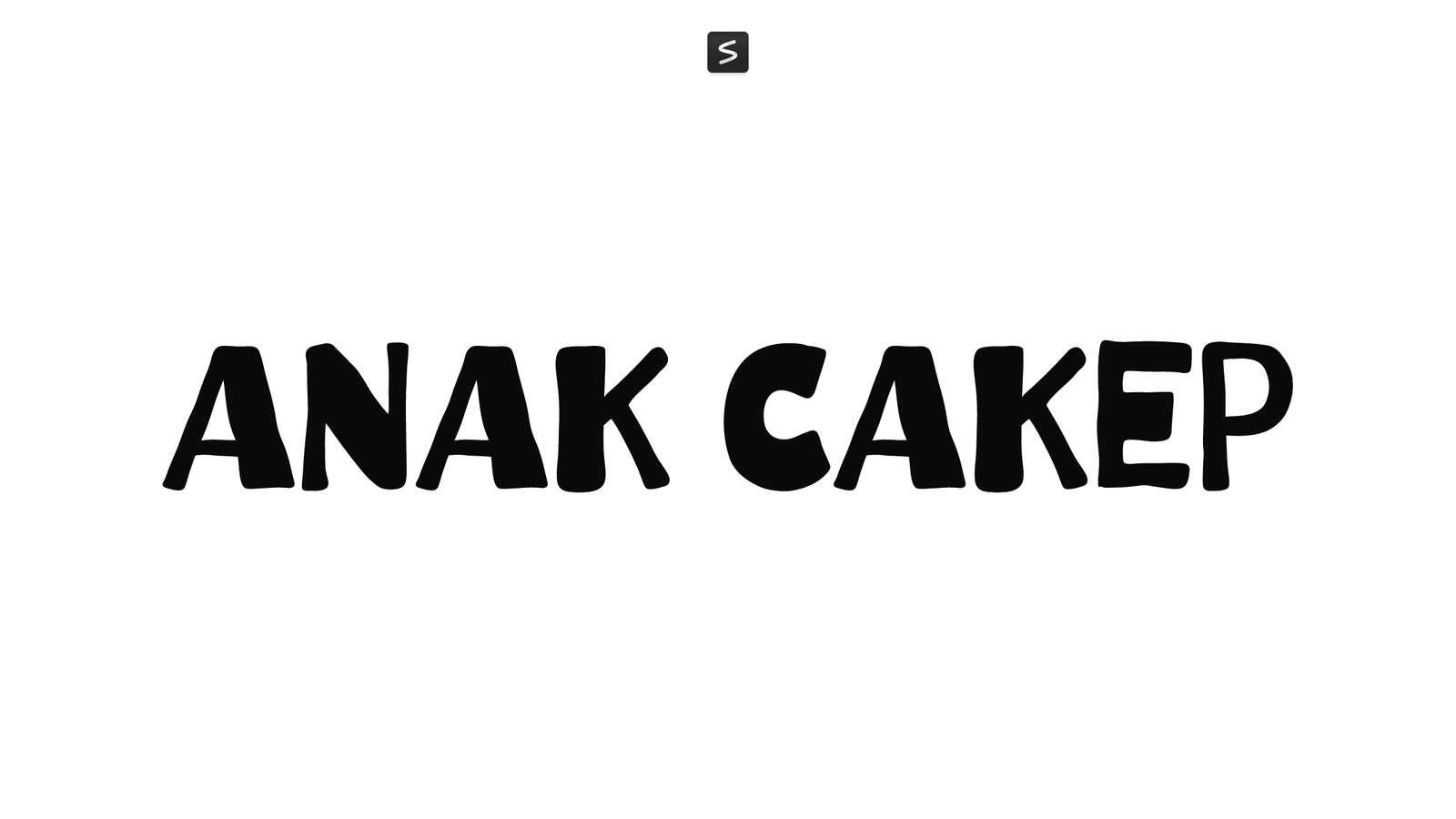
Anak Cakep is a rounded sans-serif font by Khurasan™ with soft corners and generous weight. The letterforms have a friendly, bouncy character that feels contemporary and approachable, designed to work well in playful and youth-oriented projects.
The bold, rounded strokes give each letter a relaxed personality without sacrificing readability. This makes it suitable for posters, social media graphics, cartoon illustrations, and casual branding where you want the text to feel warm and informal rather than corporate or serious.
Anак Cakep works best at display sizes and pairs well with projects that need visual friendliness and energy. It’s available for both personal and commercial use.